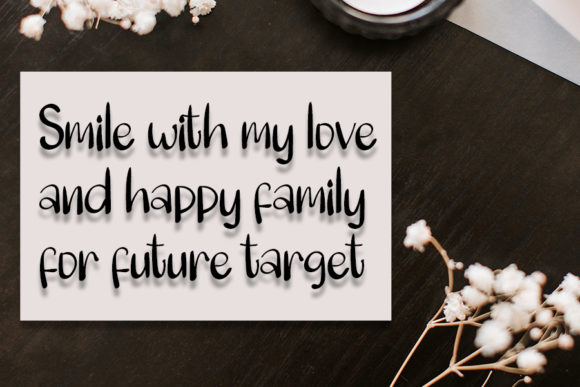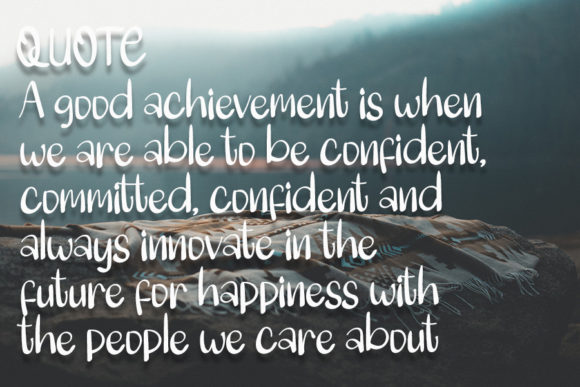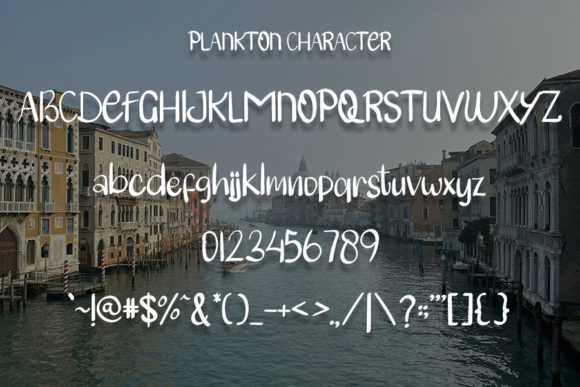
Introduction to Plankton Font
Have you ever stumbled upon the perfect font that instantly elevates your creative project? For designers, finding that perfect font can be a game-changer. It’s the moment when all the elements come together, and your design shines. This is exactly what the Plankton Font does – it adds a touch of whimsy and charm to any design, making it stand out from the crowd.
As a valuable design resource, the Plankton Font is perfect for designers looking to add a unique twist to their projects. With its high-quality design and transparent background, it’s easy to incorporate into any design. Whether you’re working on a free download project or a commercial design, this font is sure to bring a smile to your face and delight your audience.
Key Features of Plankton Font
- High-quality design resource with a transparent background, perfect for creative projects requiring a unique aesthetic.
- Designed to be highly versatile, with a wide range of applications in digital and print media.
- Features a high-resolution design (up to 2048×2048 pixels) for crisp and clear display on various devices.
- Perfect for designers, artists, and creatives looking for a distinctive and eye-catching design element for their next project.
Honest Review: Plankton Font
As a designer, I’m always on the lookout for high-quality design resources to elevate my creative projects. The Plankton Font is a popular choice, but does it live up to the hype? In this review, I’ll share my honest thoughts on this free download.
- Unique and quirky design that adds character to any project ✨
- High-quality vector format, perfect for scaling up or down
- Transparent background, making it easy to combine with other design elements
- ⚠️ Limited character set, which may not be ideal for long blocks of text
- ⚠️ Not suitable for body text, as it can be difficult to read at small sizes
Overall, the Plankton Font is a great design resource for adding a touch of whimsy to a creative project. While it may not be suitable for every project, it’s a great choice for titles, headings, or other design elements where a unique font can make a big impact.
Tips for Getting the Most Out of Plankton Font
Use the Plankton Font with a transparent background to create a clean and minimalist design. Experiment with different font sizes and styles to add depth and visual interest to your design. Consider using the font in combination with other design elements, such as graphics and images, to create a cohesive and engaging design.
The Plankton Font is ideal for use in a variety of creative projects, including logos, business cards, and social media graphics. It is also suitable for use in presentations, documents, and websites that require a clean and modern design aesthetic.